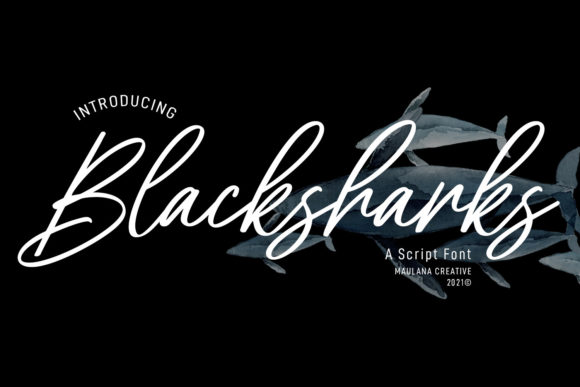
The Ultimate Guide to Blacksharks Script Font: Elevate Your Designs with Charming Playfulness
I’ll never forget the time I was working on a branding project for a trendy new cafe. My client wanted a font that was both elegant and fun, but I was struggling to find the perfect fit. That’s when I stumbled upon Blacksharks Script Font. Its charming, playful characters seemed to dance along the baseline, and I knew I had found the one. In this article, I’ll share my love for Blacksharks Script Font, its features, and how to make the most of it in your designs.
An Honest Review of Blacksharks Script Font
- ✨ Unique character set: Each letter has a distinct personality, making your text stand out from the crowd.
- ✅ Easy to read: Despite its playful nature, Blacksharks Script Font remains highly legible, even at smaller sizes.
- 💃 Versatile: Perfect for a wide range of projects, from wedding invitations to social media graphics.
While Blacksharks Script Font is an amazing addition to any design, there are a few things to keep in mind:
- ⚠️ Limited use in formal contexts: Due to its playful nature, Blacksharks Script Font might not be the best fit for very formal or corporate designs.
- 🤔 Kerning can be a bit tricky: As with any script font, you might need to adjust the kerning to achieve optimal results.
- Experiment with OpenType features like swashes and stylistic alternates to add more flair to your text.
The Story Behind Blacksharks Script Font
Blacksharks Script Font was designed with the intention of creating a font that feels both elegant and approachable. The designer aimed to craft a script font that could be used in a wide range of creative projects, from playful social media graphics to more formal event invitations. The result is a charming, versatile font that adds a touch of personality to any design.
Q: Is Blacksharks Script Font suitable for body text?
A: While Blacksharks Script Font is highly legible, it’s best suited for headings and titles. For body text, consider using a more traditional font for optimal readability.
Q: Does Blacksharks Script Font support OpenType features?
A: Yes, Blacksharks Script Font supports OpenType features, including swashes, stylistic alternates, and glyphs. Experiment with these features to add more flair to your designs.